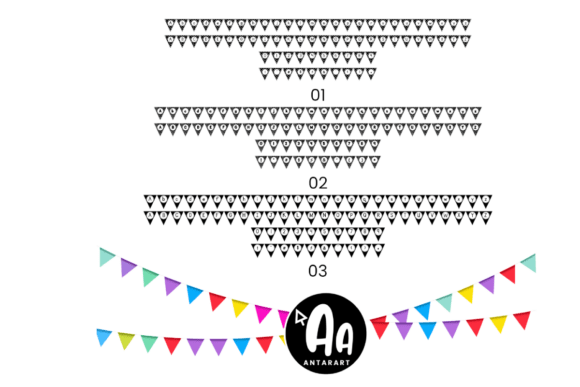
Bring Your Designs to Life with the Perfect Triangle Banner Font
Do you remember the excitement of planning a classroom or event decoration, only to be stuck on the perfect font to make it pop? The moment of creativity and inspiration hits, and you know exactly what you want – a unique, eye-catching design that grabs attention. That’s where the Abcd Ref Triangle Banner3 Font comes in, offering three fun and versatile styles: Polka Dot, Stars, and Basic.
This innovative font is designed to make your bulletin board titles, banners, and wall displays stand out. Each letter is beautifully crafted inside a stylish triangular pennant, making it easy to create a range of designs, from colorful classroom bunting to motivational posters and quotes. The Abcd Ref Triangle Banner3 Font is printable, editable, and reusable, giving you endless creative possibilities to enhance your designs and make a lasting impression.
Abcd Ref Triangle Banner3 Font Key Features
- Font Style: A unique, modern, and geometric font with triangular shapes, perfect for creating eye-catching designs.
- Unique Characteristics: The font features a distinctive triangular shape, making it stand out in designs, and is ideal for use in logos, branding, and advertising materials.
Designer Review: Abcd Ref Triangle Banner3 Font
Overall, I was pleasantly surprised by the Abcd Ref Triangle Banner3 Font. ✨ Here are a few things that stood out to me:
- The font’s unique design and style, with its triangular shape and bold lines, adds a modern and edgy touch to any project.
- The font is highly customizable, allowing users to adjust the size, color, and orientation of the triangle to suit their needs.
- The font is well-suited for use in digital design, particularly in social media graphics, web design, and mobile app development.
However, there are a few limitations to be aware of: ⚠️
- The font may not be as versatile as some other fonts, and may not be suitable for use in print design or traditional media.
- The font’s triangular shape may not be ideal for use in projects that require a more subtle or understated design aesthetic.
- The font may not be compatible with older versions of software or operating systems.
Overall, I would recommend the Abcd Ref Triangle Banner3 Font to designers who are looking for a bold and eye-catching font that can add a modern touch to their projects. While it may have some limitations, I believe it has a lot of potential and can be a valuable addition to any designer’s toolkit.
Use the ABCD Ref Triangle Banner3 Font for creating eye-catching banners, posters, and flyers.
It’s ideal for highlighting important information or creating a sense of urgency.
Remember to adjust the font size and color to ensure readability and visibility.